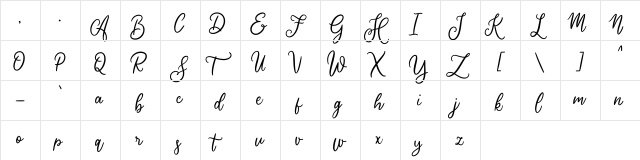
Cherishia Demo Regular
Design Context for Cherishia Demo Typeface
Cherishia Demo is a composed and adaptable typeface that performs quietly and consistently across a wide range of design contexts.